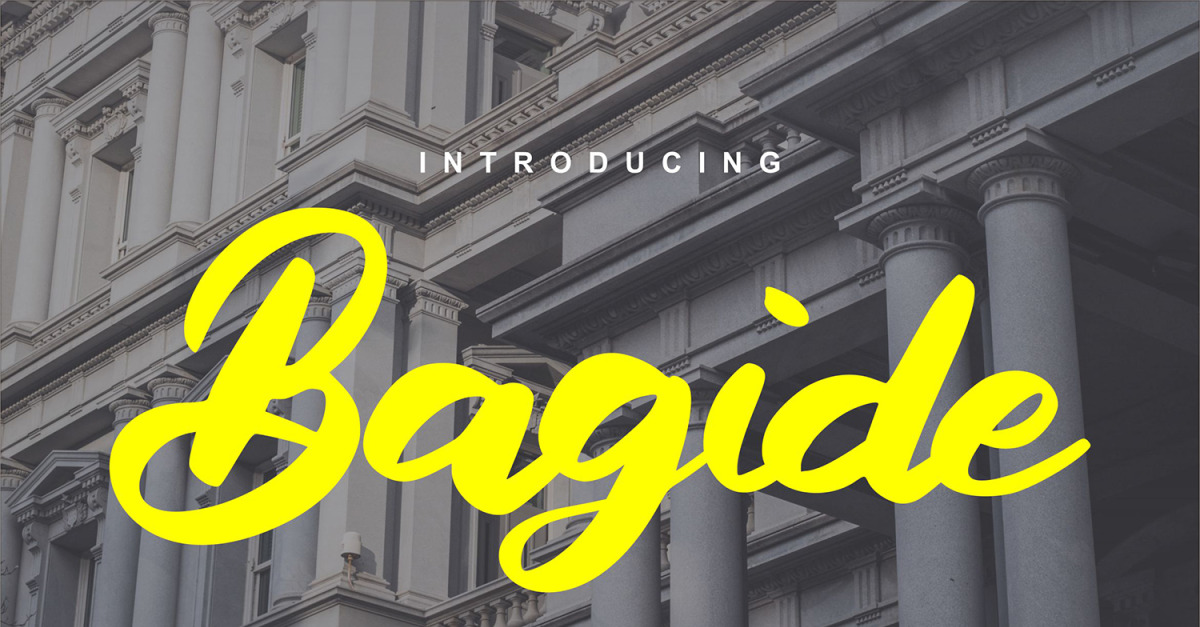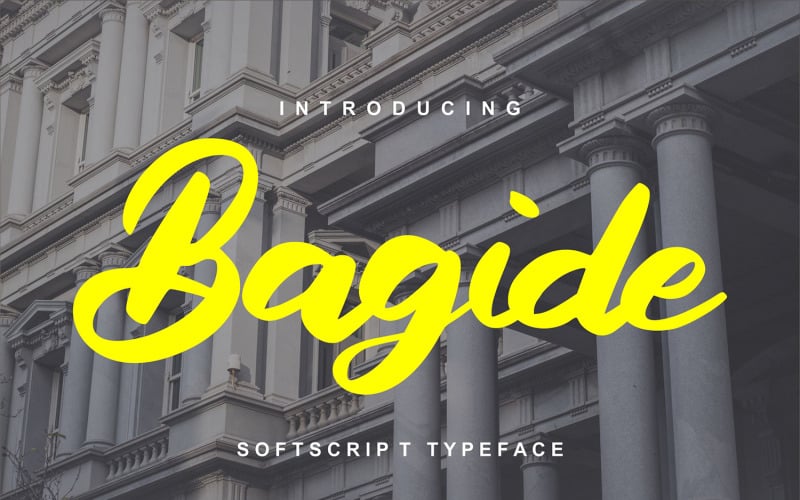
Bagide | Softscript Typeface Font
**Bagide | Softscript Typeface** with a calligraphy style, So beautiful on invitation like greeting cards, branding materials, business cards, quotes, posters, and more!